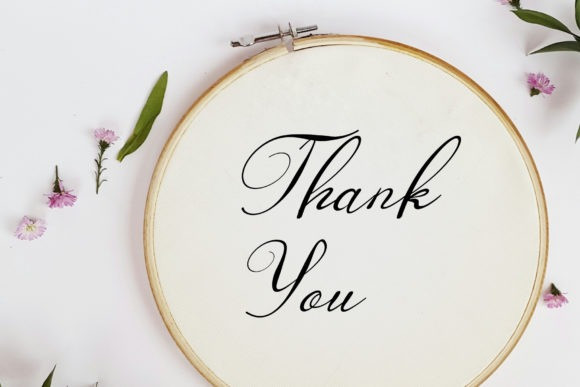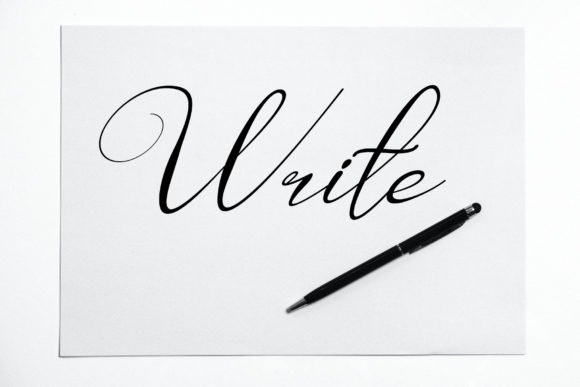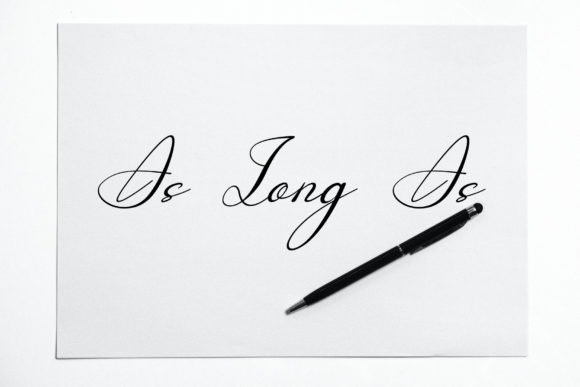
As Long As Font
As Long As Font is a lovely script font featuring charming, playful characters that seem to dance along the baseline. Add this font to your most creative ideas, and notice how it makes them stand out!